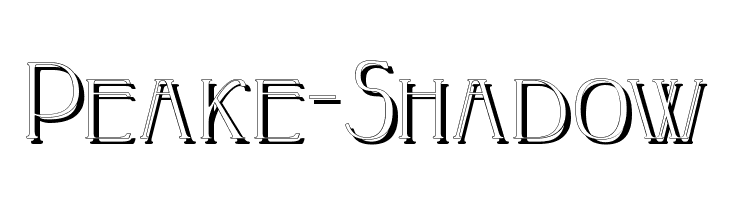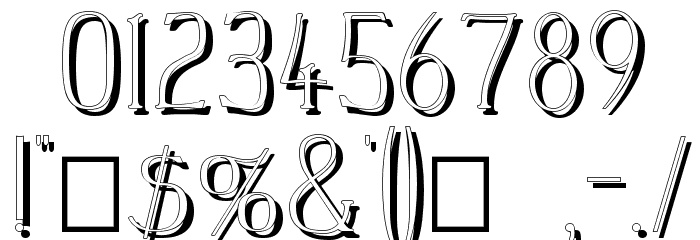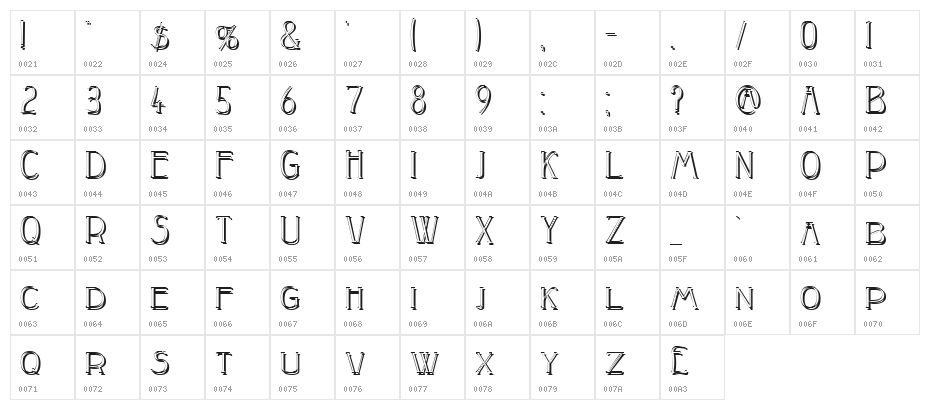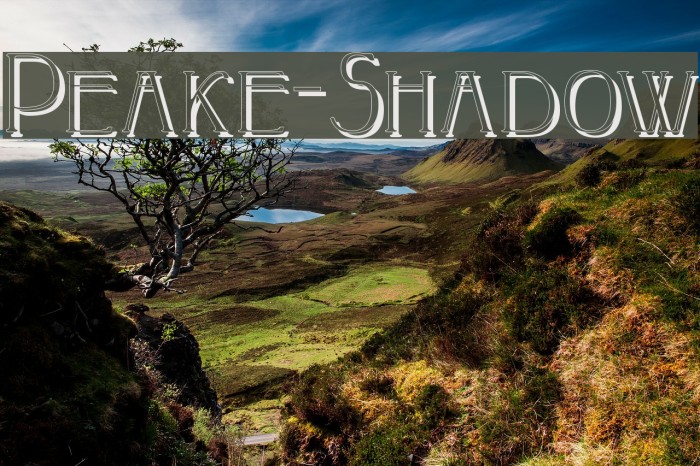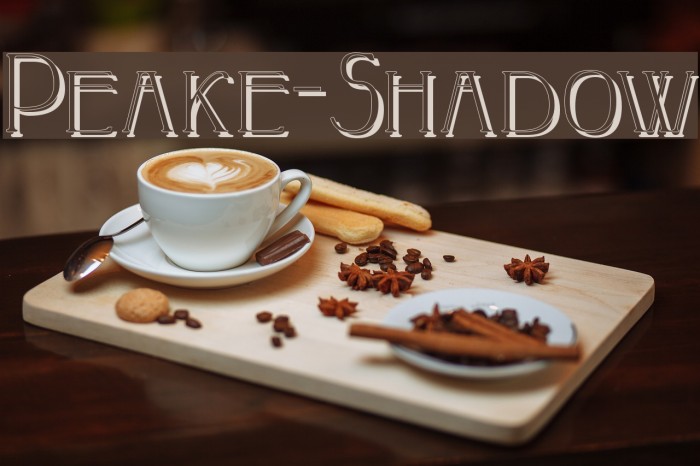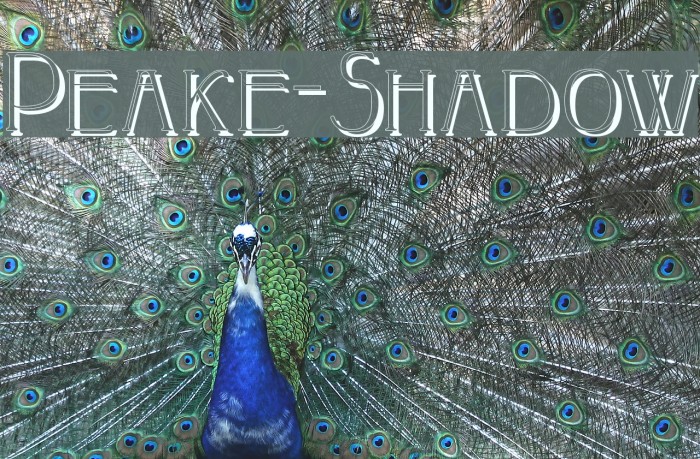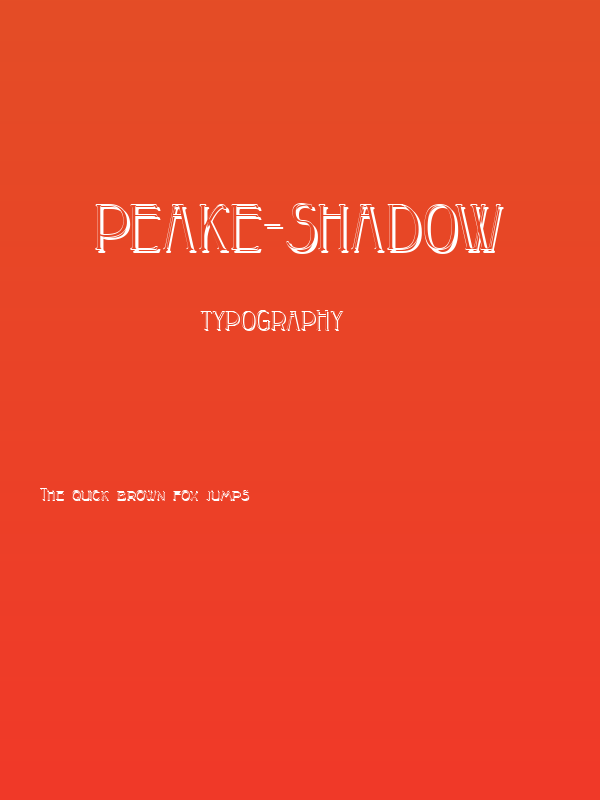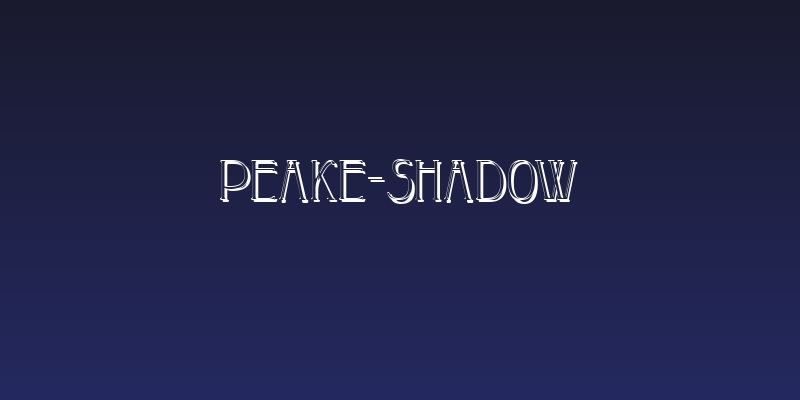
Peake-Shadow Font
Peake-Shadow Description
This font features a distinctive shadow effect that gives each character a three-dimensional appearance. The letters are bold and have a strong presence, with a decorative flair that makes them stand out. The uppercase and lowercase characters maintain a consistent style, with clean lines and a slight serif that adds to their elegance. The numerals and special characters are equally well-designed, ensuring a cohesive look across all text. This font is ideal for making a statement, with its unique shadowing providing depth and interest.
| Proposed Projects | Ideal for headlines, posters, branding, and any project requiring a bold, eye-catching typeface. |